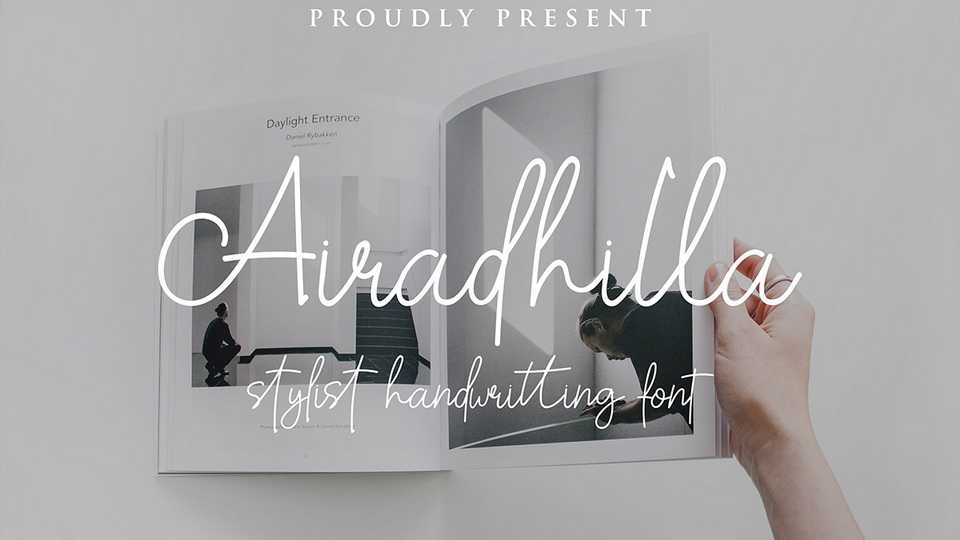
Download Airadhilla font, a stylish handwritten typeface featuring characters that look classy, realistic, and natural. Airadhilla is perfect for branding projects, logos, wedding designs, social media posts, advertisements, label, photography watermark and other projects that need authentic typography.